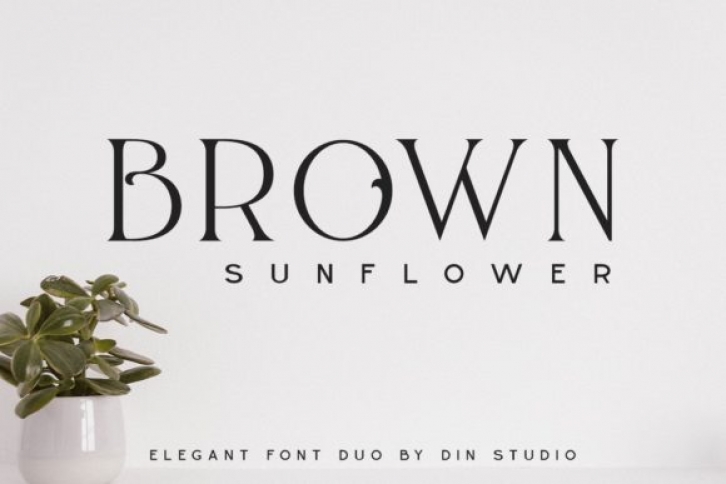
Brown Sunflowers is a spectacular duo font (serif and sans serif). Incredibly versatile, this font fits a wide pool of designs, elevating them to the highest levels. Add this font to your favorite creative ideas and notice how it makes them come alive!